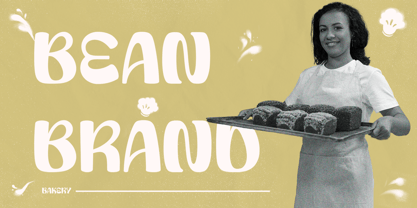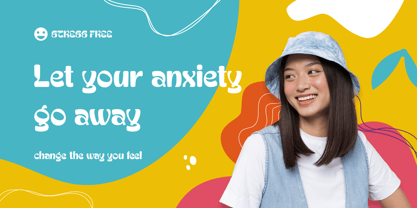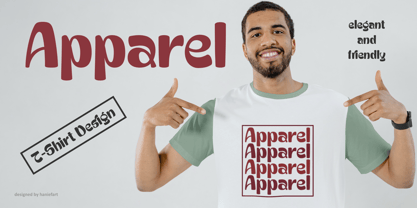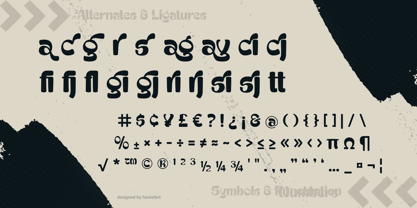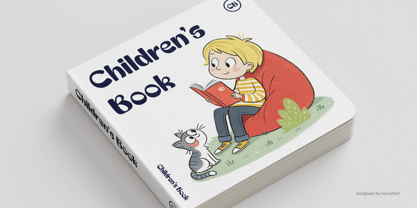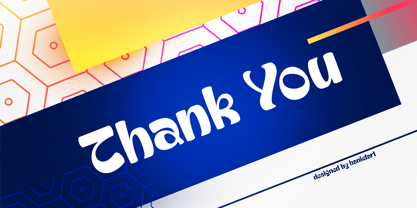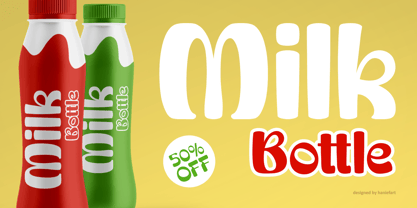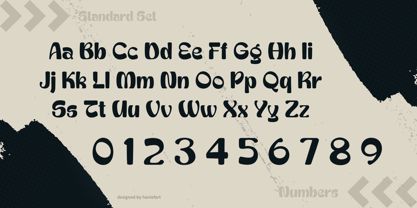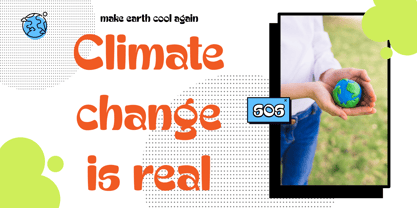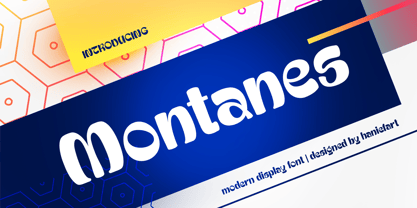
Montanes
by Haniefart
The Montanes Font Family was designed by Hanif Maulazi and published by Haniefart. Montanes contains 1 styles.
Montanes is a standout display font, carefully designed with a contemporary touch. It embodies sobriety and pure aesthetics, elegantly highlighting your projects with a charismatic and fashionable appeal. More than just a font, Montanes leaves a bold mark by introducing a hint of subtlety and subtle adaptability. Perfect for brand identities, business cards, comic book covers, magazine covers, t-shirt designs, banners, posters, flyers, templates, and more. Montanes font seamlessly transforms the ordinary into the extraordinary.